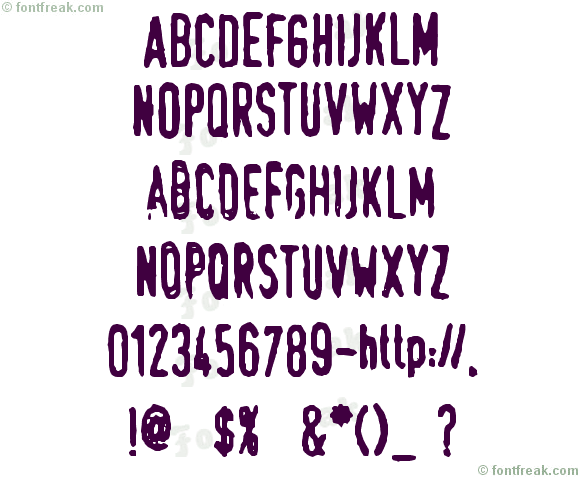
Swede-Trauma
Swede-Trauma — Character Map
About Swede Trauma
Swede Trauma is a distinctive display font designed by Mr. Fisk, showcasing a unique blend of playful and edgy aesthetics. This freeware typeface is characterized by its bold, irregular strokes that create an eye-catching visual impact. The font's heavy weight and varying stroke contrast contribute to its dynamic personality, making it ideal for attention-grabbing designs. Each character features a slightly distressed look, adding a layer of texture that evokes a sense of creativity and spontaneity. The spacing between letters is well-considered, ensuring readability while still maintaining a bold presence.
This font excels in a variety of creative applications. It is particularly well-suited for movie posters, where its dramatic flair can enhance the visual storytelling. Additionally, Swede Trauma can be effectively used for promotional materials in the music industry, giving band logos and album covers a unique edge. It also works wonderfully for restaurant menus, especially those looking to establish a quirky or modern vibe. For graphic designers and content creators, this font can serve as an engaging choice for social media graphics, attracting more viewers with its distinctive style.
Targeting graphic designers, small business owners, and creative entrepreneurs, Swede Trauma is a versatile tool for those looking to make a memorable statement. With its free download option, it provides an accessible way for creatives to experiment without financial commitment. This font stands out due to its ability to balance boldness with a sense of fun, enabling users to convey a range of emotions and themes in their work. Whether you're designing for commercial use or personal projects, the Swede Trauma font free download is an excellent choice to elevate your design portfolio.